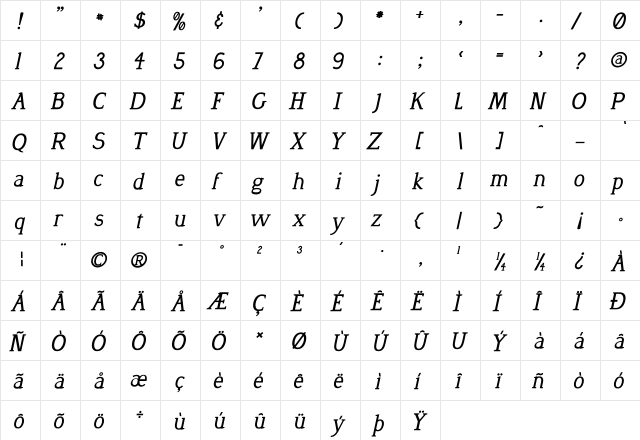
Desmond Bold Italic
Design Context for Desmond Typeface
Desmond offers clean, dependable letterforms without strong stylistic allegiance, making it a practical choice for designers who need flexibility. The slanted form adds forward momentum and visual energy. Its bold stroke weight gives it real presence on the page.